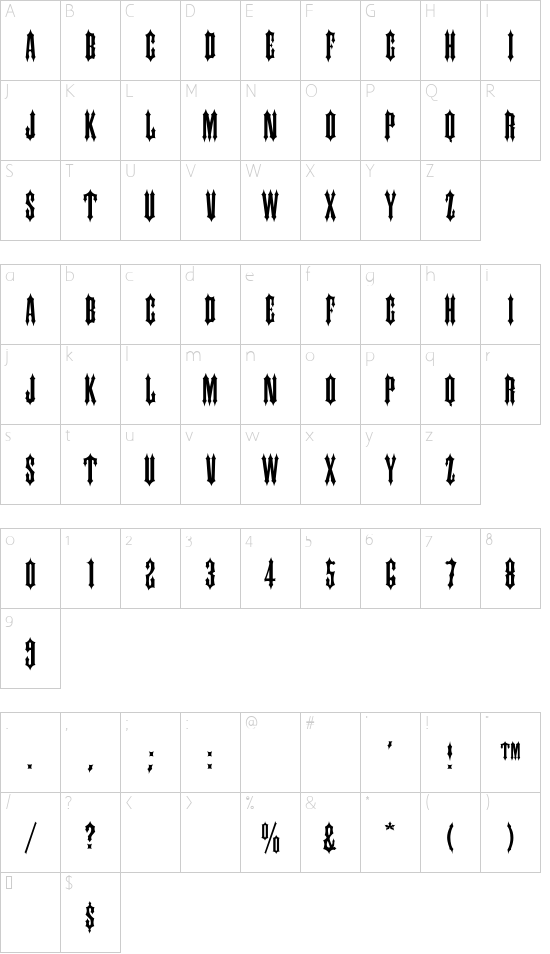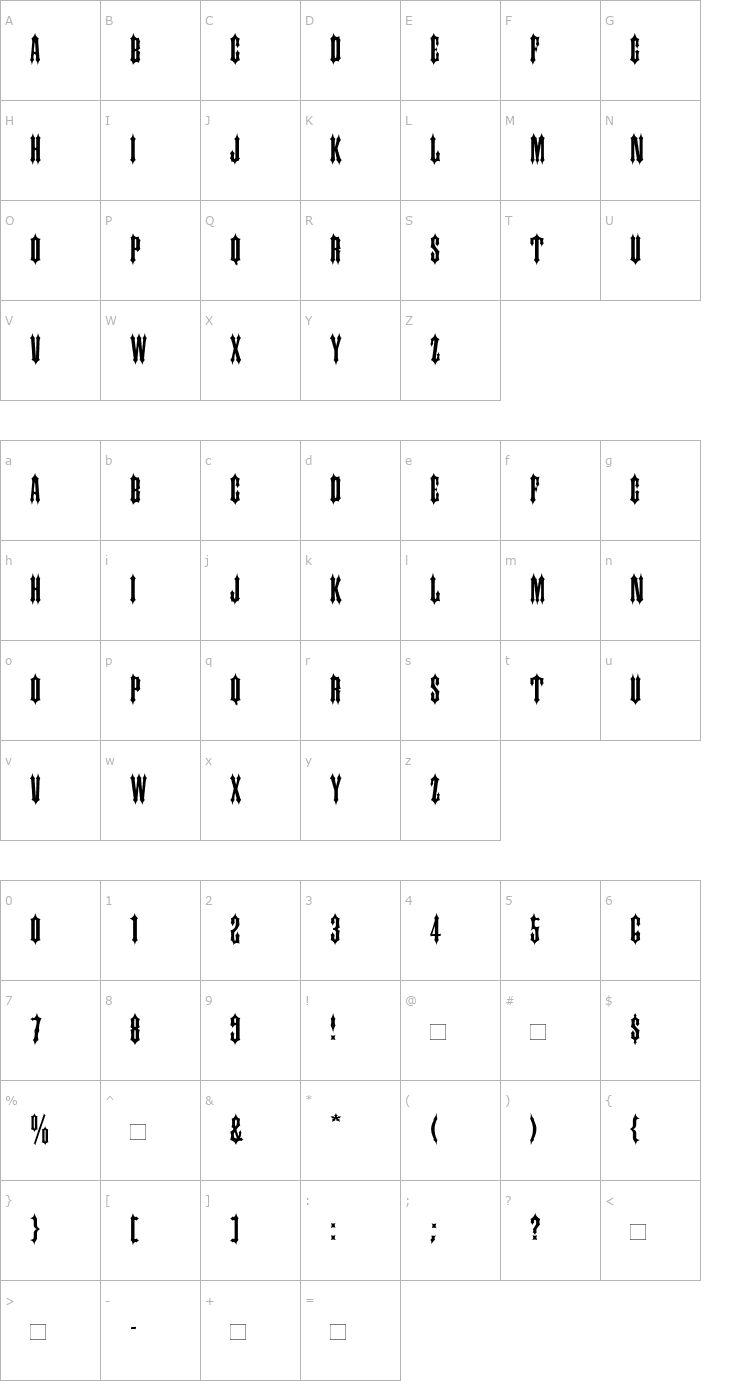
Ironwood Font . Explore ironwood fonts at myfonts. Ironwood font is a homage to the old woodtypes made popular by the. Judas caps by lorvad is. A decorative typeface with 1 style, available from adobe fonts for sync and web. Unleash your design potential today! Click to find the best 2 free fonts in the iron wood style. Explore ironwood designed by joy redick at adobe fonts. Every font is free to download! The font used for the logo looks like ironwood designed by joy redick. Ironwood is an adobe originals typeface designed by joy redick in 1990. Ironwood is a homage to the old woodtypes made popular by the wanted posters in western films. Discover a world of captivating typography for your creative projects. Installable on pc, mac, linux, ios, and android platforms. Click to find the best 2 free fonts in the ironwood style.
Installable on pc, mac, linux, ios, and android platforms. Ironwood is an adobe originals typeface designed by joy redick in 1990. Explore ironwood designed by joy redick at adobe fonts. Looking for iron wood fonts? A decorative typeface with 1 style, available from adobe fonts for sync and web. The font used for the logo looks like ironwood designed by joy redick. Unleash your design potential today! Every font is free to download! Explore ironwood fonts at myfonts. Ironwood is a homage to the old woodtypes made popular by the wanted posters in western films.
Ironwood Font Click to find the best 2 free fonts in the iron wood style. Judas caps by lorvad is. Ironwood font is a homage to the old woodtypes made popular by the. Ironwood is an adobe originals typeface designed by joy redick in 1990. Discover a world of captivating typography for your creative projects. Click to find the best 2 free fonts in the iron wood style. Explore ironwood designed by joy redick at adobe fonts. Installable on pc, mac, linux, ios, and android platforms. Discover the free ironwood std medium font at free font download ! Ironwood is a homage to the old woodtypes made popular by the wanted posters in western films. Explore ironwood fonts at myfonts. A decorative typeface with 1 style, available from adobe fonts for sync and web. The font used for the logo looks like ironwood designed by joy redick. Click to find the best 2 free fonts in the ironwood style. Every font is free to download! Every font is free to download!
Ironwood Font Discover the free ironwood std medium font at free font download ! Ironwood font is a homage to the old woodtypes made popular by the. Judas caps by lorvad is. Looking for iron wood fonts? Every font is free to download! The font used for the logo looks like ironwood designed by joy redick. Installable on pc, mac, linux, ios,. Ironwood Font.
IRONWOOD Regular Download For Free, View Sample Text, Rating And More Ironwood Font Discover a world of captivating typography for your creative projects. Looking for iron wood fonts? Ironwood is a homage to the old woodtypes made popular by the wanted posters in western films. Explore ironwood designed by joy redick at adobe fonts. The font used for the logo looks like ironwood designed by joy redick. Click to find the best 2. Ironwood Font.
IRONWOODMedium font Ironwood Font The font used for the logo looks like ironwood designed by joy redick. Click to find the best 2 free fonts in the iron wood style. Ironwood is a homage to the old woodtypes made popular by the wanted posters in western films. Click to find the best 2 free fonts in the ironwood style. Explore ironwood fonts at myfonts.. Ironwood Font.
Ironwood Font Click to find the best 2 free fonts in the iron wood style. Ironwood is a homage to the old woodtypes made popular by the wanted posters in western films. Explore ironwood designed by joy redick at adobe fonts. Ironwood is an adobe originals typeface designed by joy redick in 1990. Discover a world of captivating typography for your creative. Ironwood Font.
Ironwood Font Discover the free ironwood std medium font at free font download ! Ironwood is an adobe originals typeface designed by joy redick in 1990. Looking for iron wood fonts? Every font is free to download! Discover a world of captivating typography for your creative projects. Unleash your design potential today! Judas caps by lorvad is. Ironwood is a homage to. Ironwood Font.
Ironwood Font Unleash your design potential today! Click to find the best 2 free fonts in the ironwood style. Discover the free ironwood std medium font at free font download ! Every font is free to download! Ironwood font is a homage to the old woodtypes made popular by the. Looking for iron wood fonts? Explore. Ironwood Font.
Ironwood Font Explore ironwood fonts at myfonts. Ironwood font is a homage to the old woodtypes made popular by the. A decorative typeface with 1 style, available from adobe fonts for sync and web. Every font is free to download! Installable on pc, mac, linux, ios, and android platforms. Judas caps by lorvad is. Click to find the best 2 free fonts. Ironwood Font.
Download free Ironwood Std Medium font IronwoodStd.otf Ironwood Font Installable on pc, mac, linux, ios, and android platforms. Looking for iron wood fonts? Unleash your design potential today! Ironwood is an adobe originals typeface designed by joy redick in 1990. A decorative typeface with 1 style, available from adobe fonts for sync and web. The font used for the logo looks like ironwood designed by joy redick. Ironwood is. Ironwood Font.